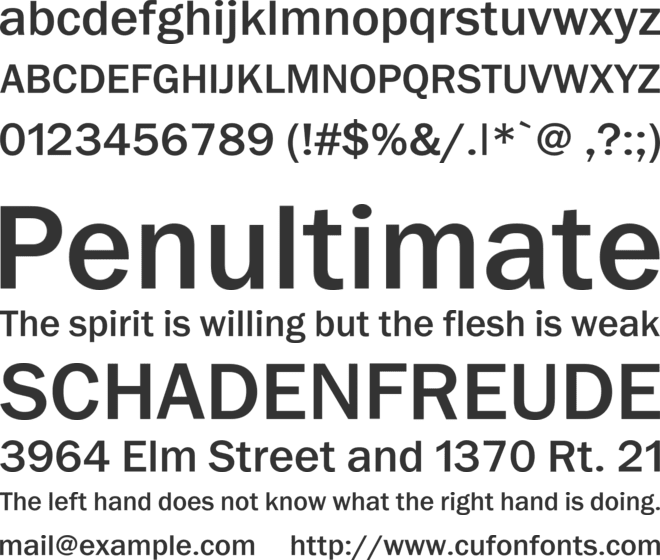
Franskton Font Family
A font styled after ITC Franklin Gothic. It has a high x-height and a slightly changed oblique
This font was made by Quinndustries.